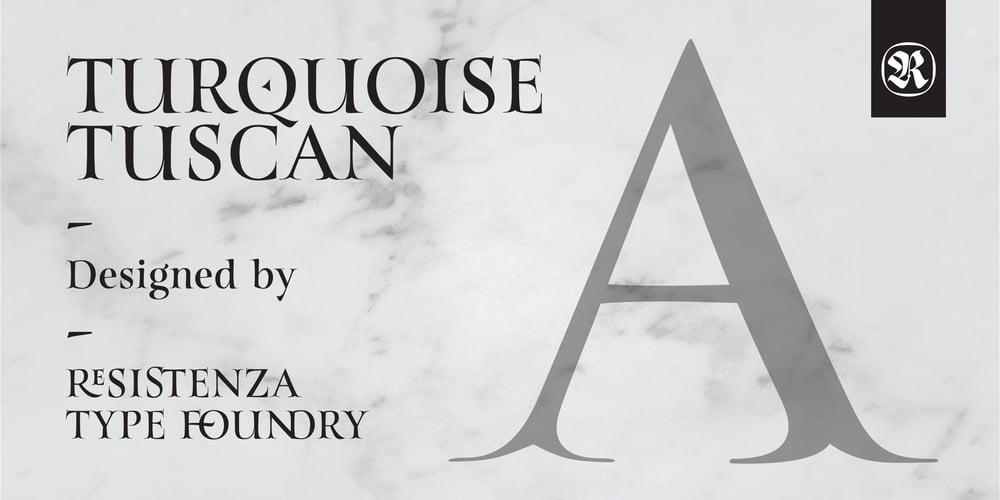
Turquoise Tuscan
Turquoise Tuscan font
Turquoise Tuscan Font Family was designed by Giuseppe Salerno and published by Resistenza. Turquoise Tuscan contains 1 styles and family package options. A new Version of Turquoise Roman Capitals. With specials Tuscan Serifs to add more engraving feel. Turquoise Tuscan is full of ligatures and awesome alternates.Perfect for big headlines, logos, branding and wine labels.